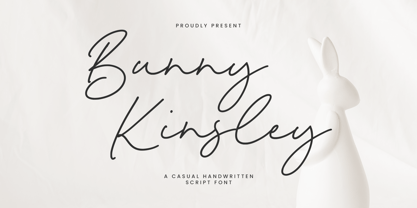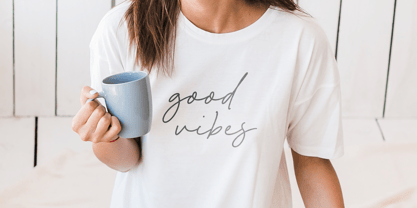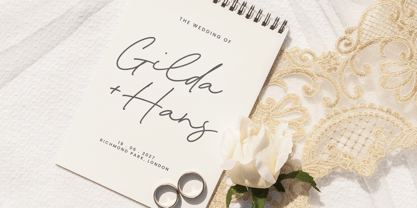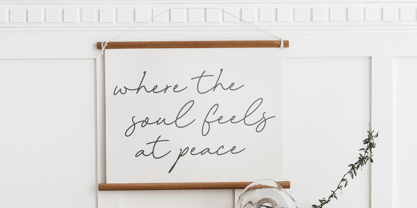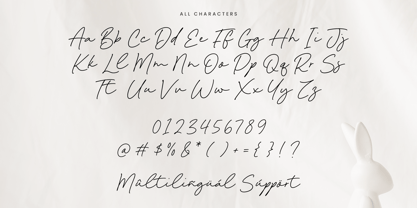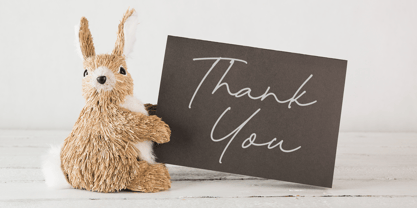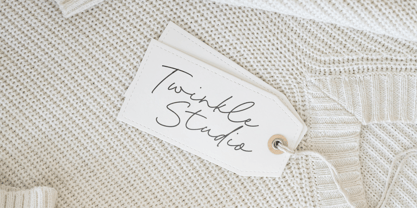
Bunny Kinsley
by Timurtype
Introduced by Timurtype Studio!
Bunny Kinsley is a Casual Handwritten Script Font
Bunny Kinsley is a charming casual handwritten script font that captures a playful and whimsical feel. With its smooth strokes and natural flow, it adds a friendly touch to any project—perfect for invitations, branding, quotes, and social media graphics. Bunny Kinsley combines elegance with a carefree vibe, making it ideal for designs that need a warm, approachable aesthetic.
Bunny Kinsley Font also supports multilingualism
Designers: Wara Sigit Tri Pamungkas
Foundry: Timurtype